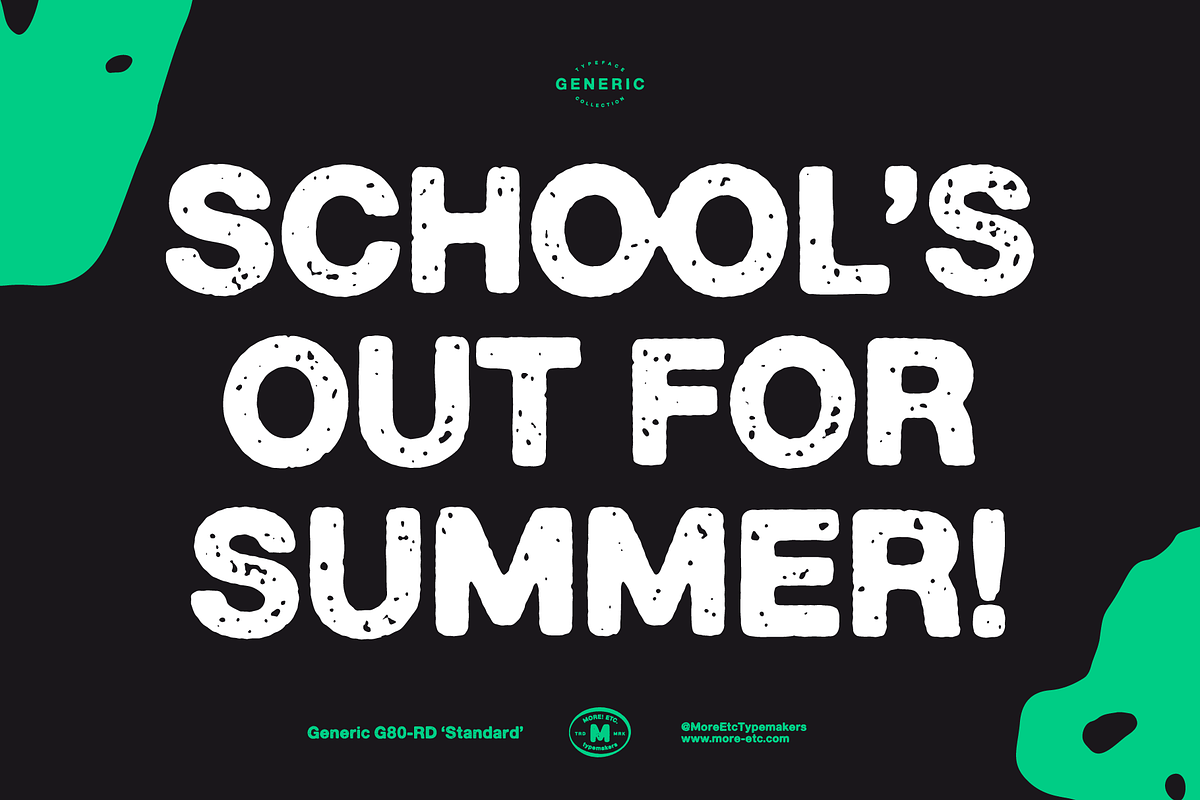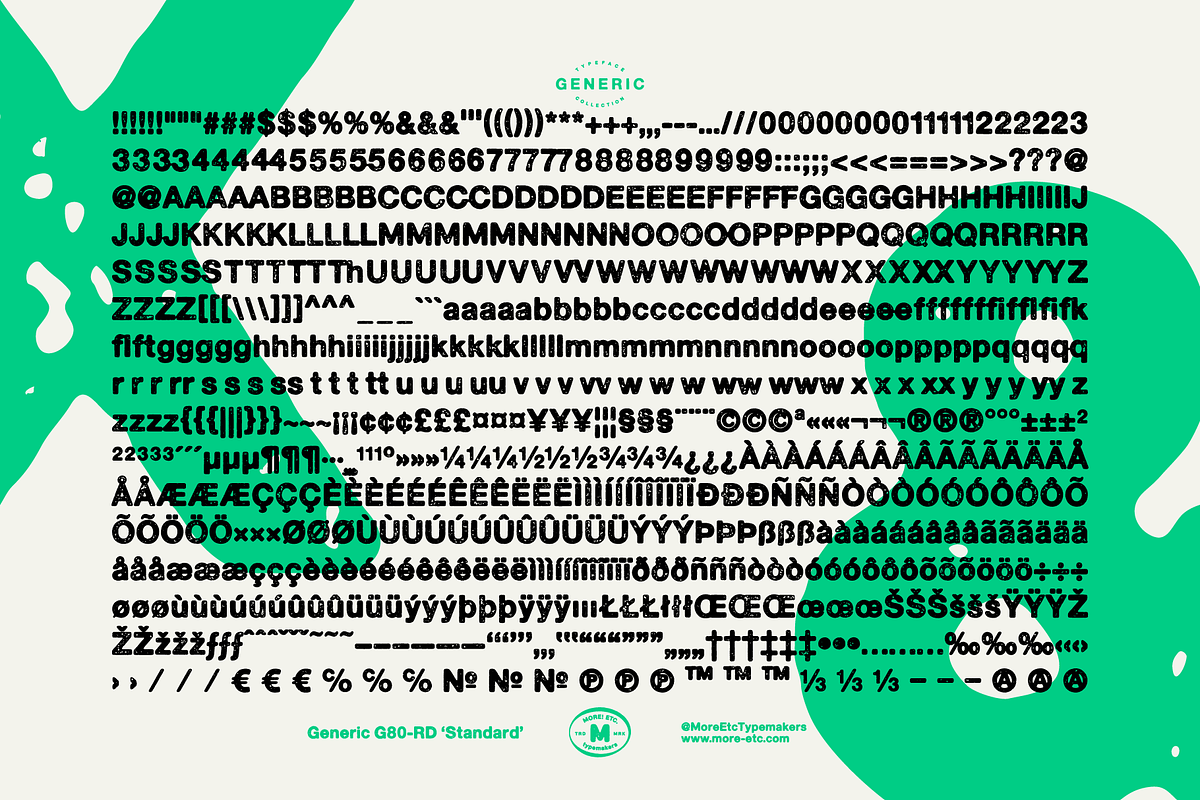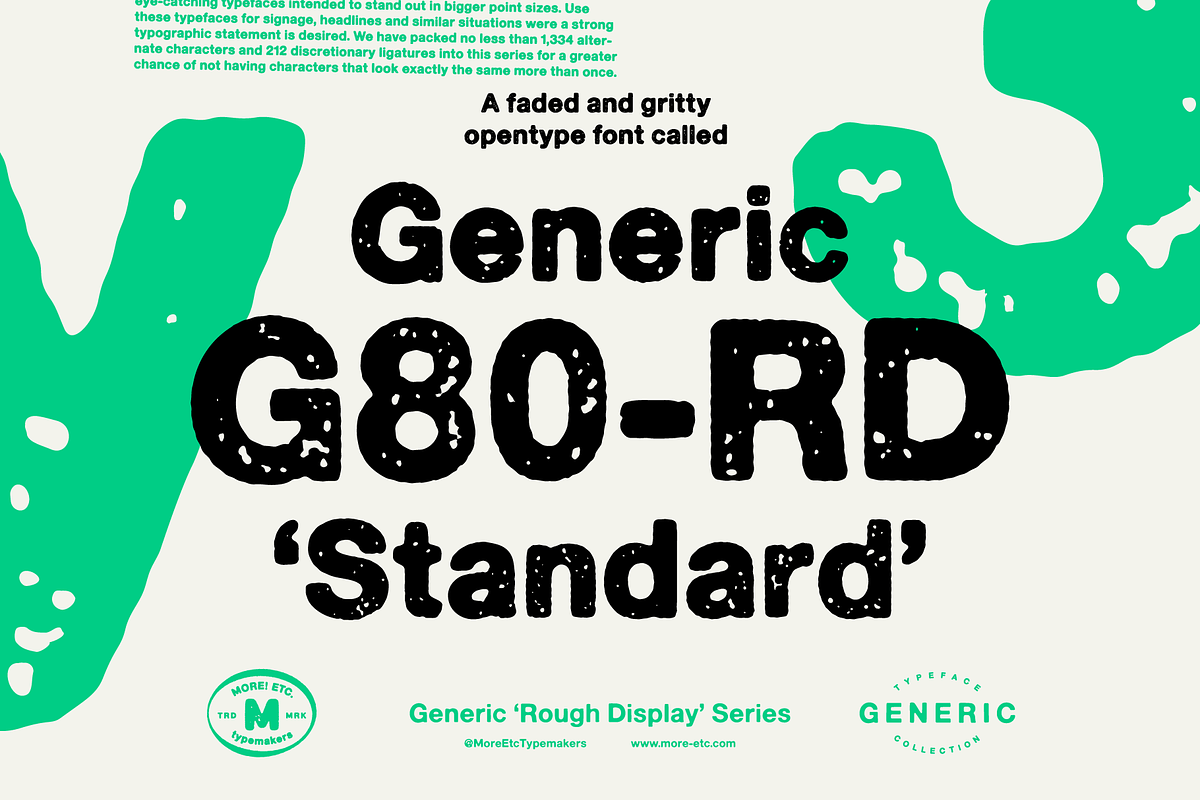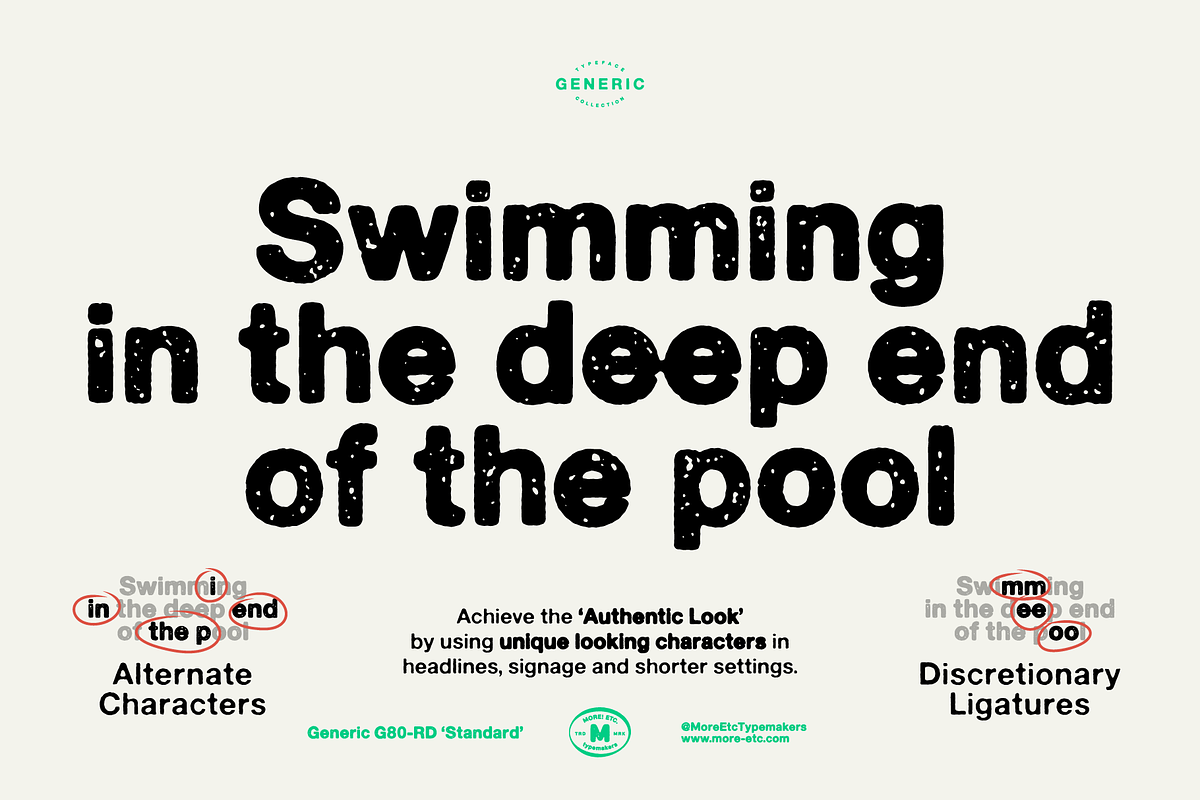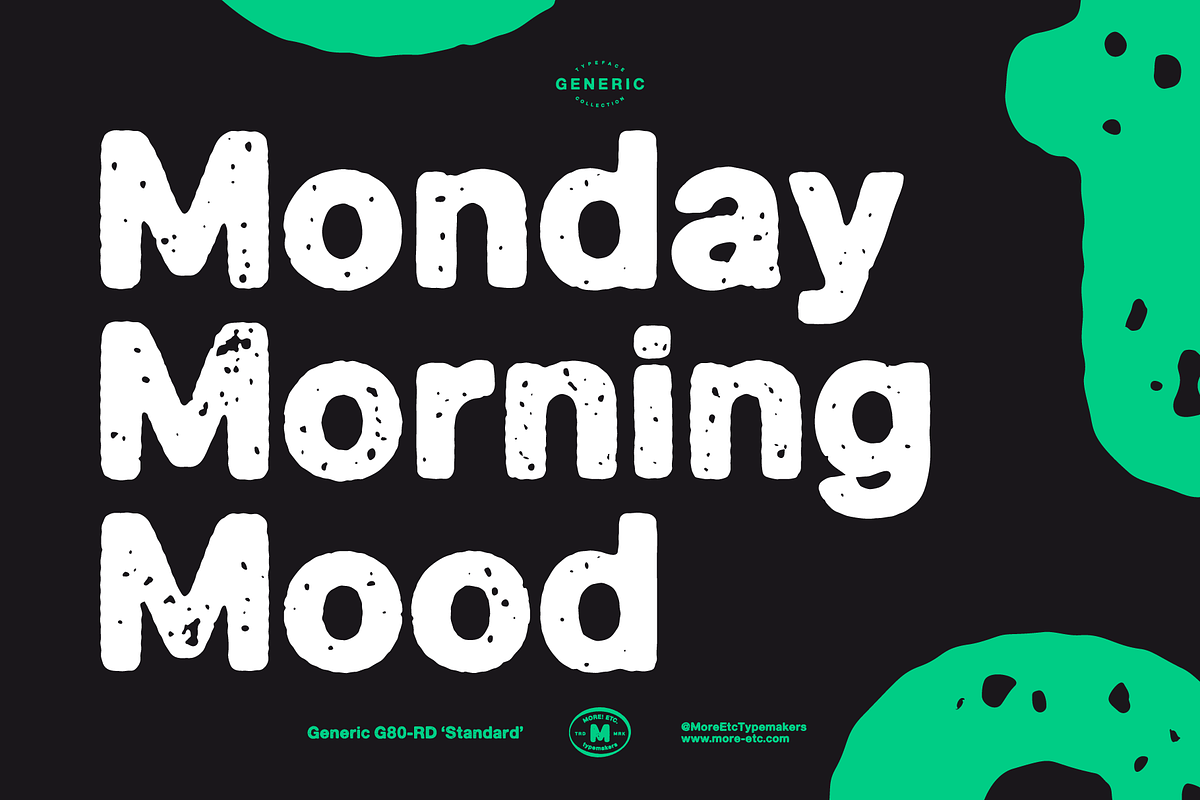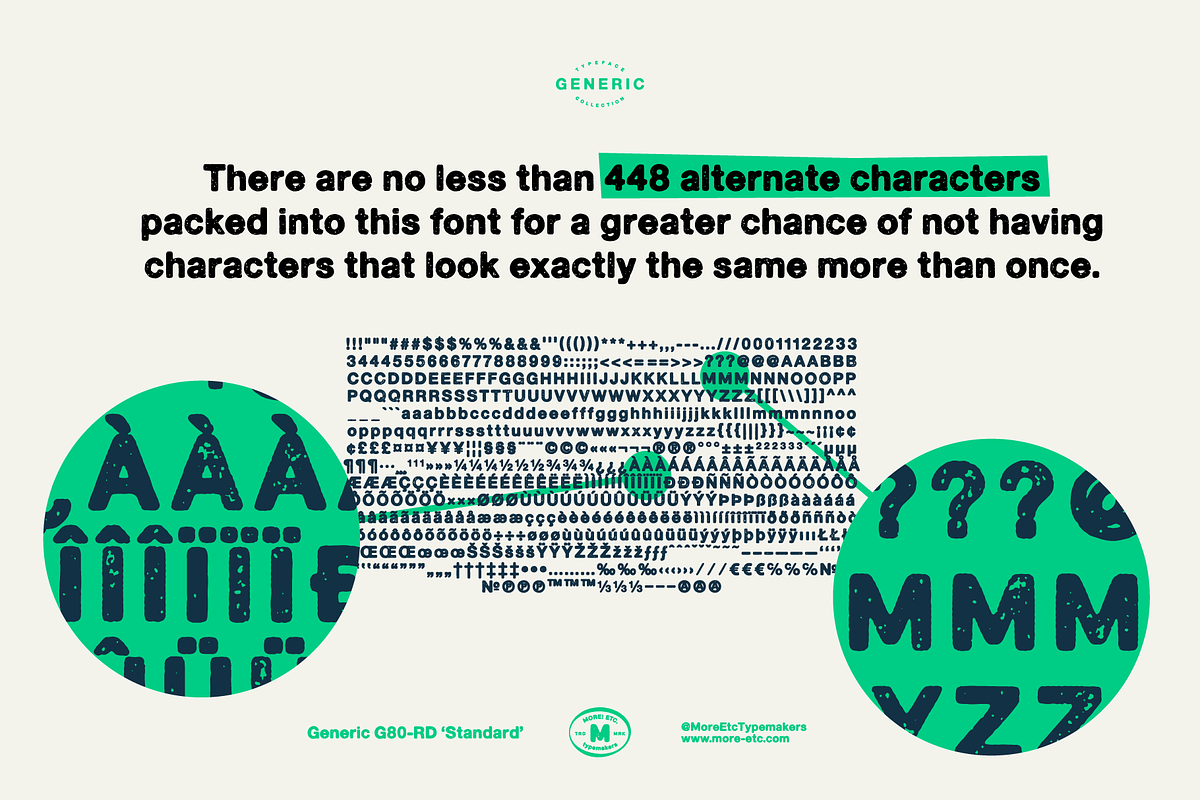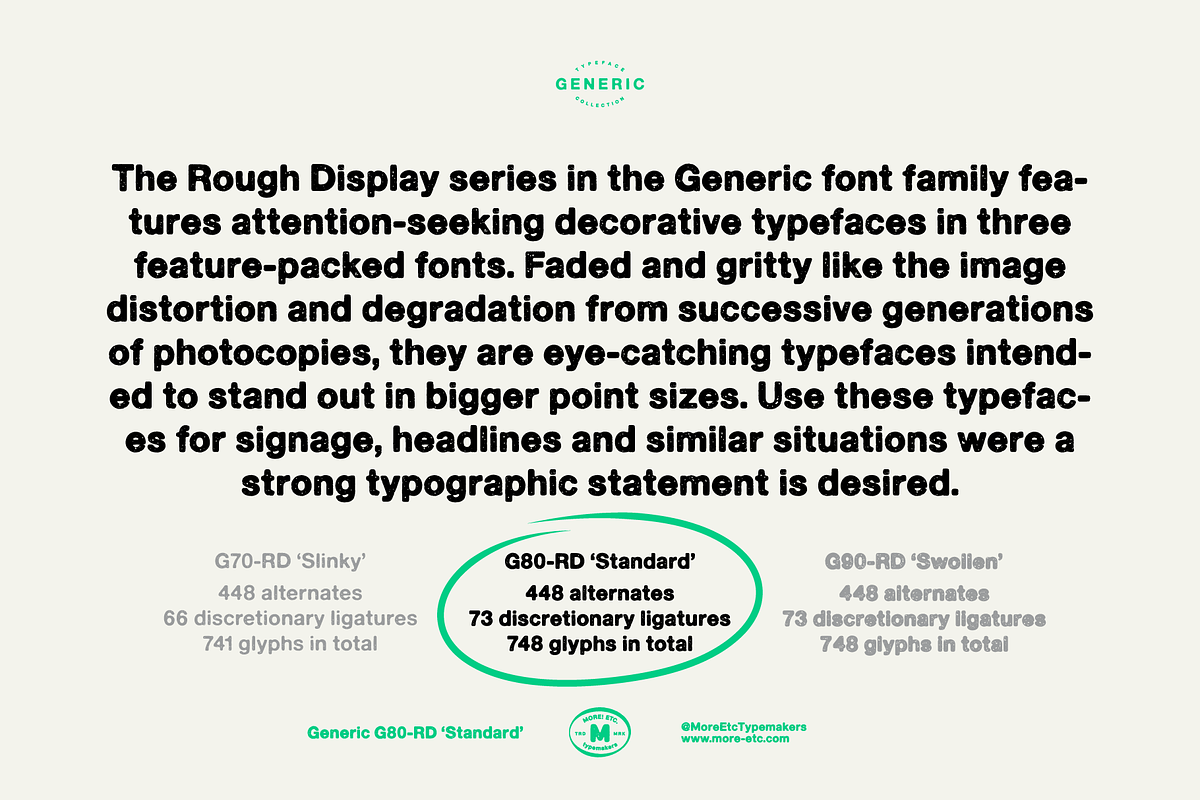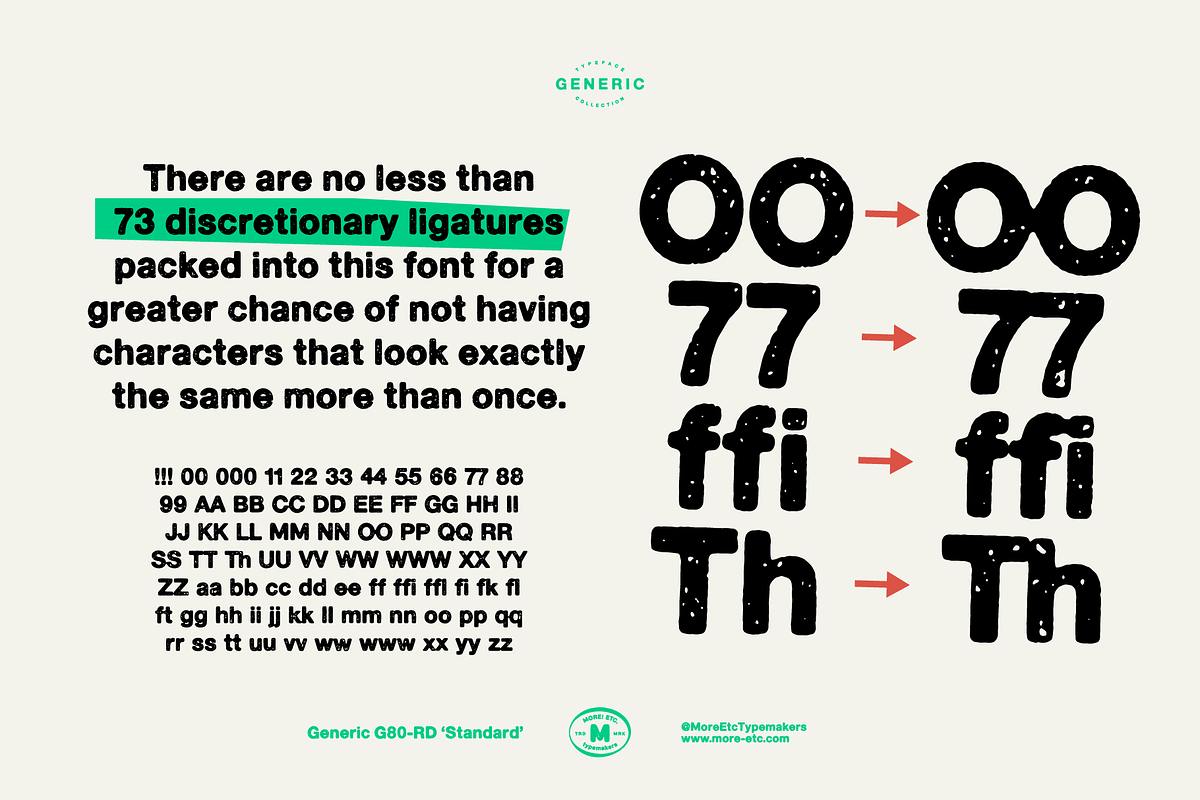
Generic G80-RD 'Standard'
Say hello to the Generic G80-RD 'Standard' typeface – a rough, worn and decorative typeface in a bold weight. A display font packed with alternate characters and ligatures.
This is an attention-seeking and decorative typeface packed with OpenType features such as alternate characters and discretionary ligatures. Faded and gritty like the image distortion and degradation from successive generations of photocopies, it's an eye-catching typeface intended to stand out in bigger point sizes. Use it for signage, headlines and similar situations were a strong typographic statement is desired.
OpenType features: Alternate characters & discretionary ligatures
I have packed no less than 448 alternate characters (every character has two additional alternate characters) and 73 discretionary ligatures into this font for a greater chance of not having characters that look exactly the same more than once. Just swap out the repeating characters with alternate characters and use ligatures for a more authentic experience and make your text look "less like a font".
Font summary:
- Display font with tons of personality
- Faded, Rough, Gritty and Decorative
- Attention-seeking
- 748 glyphs
- 448 alternate characters
- 73 discretionary ligatures
Companion shadow font
The Generic Typeface Collection is a series of sans-serif typefaces inspired by the craftsmanship of graphic design, typesetting, and printing in the analogue era – before Adobe, Macintosh computers and desktop publishing – when dinosaurs ruled the earth. This is an attempt to incorporate spirit and personality into a set of typefaces without losing distinction. You might call it a homage to non-perfection. I call it human.
The Generic Typeface Collection consists of 11 fonts divided into four series. The three standard series – the Formal Release series, the Coarse Copy series, and the Rough Display series – all contain three fonts each. The Extra Splendor series contains a couple of shadow fonts for that little extra sparkle.